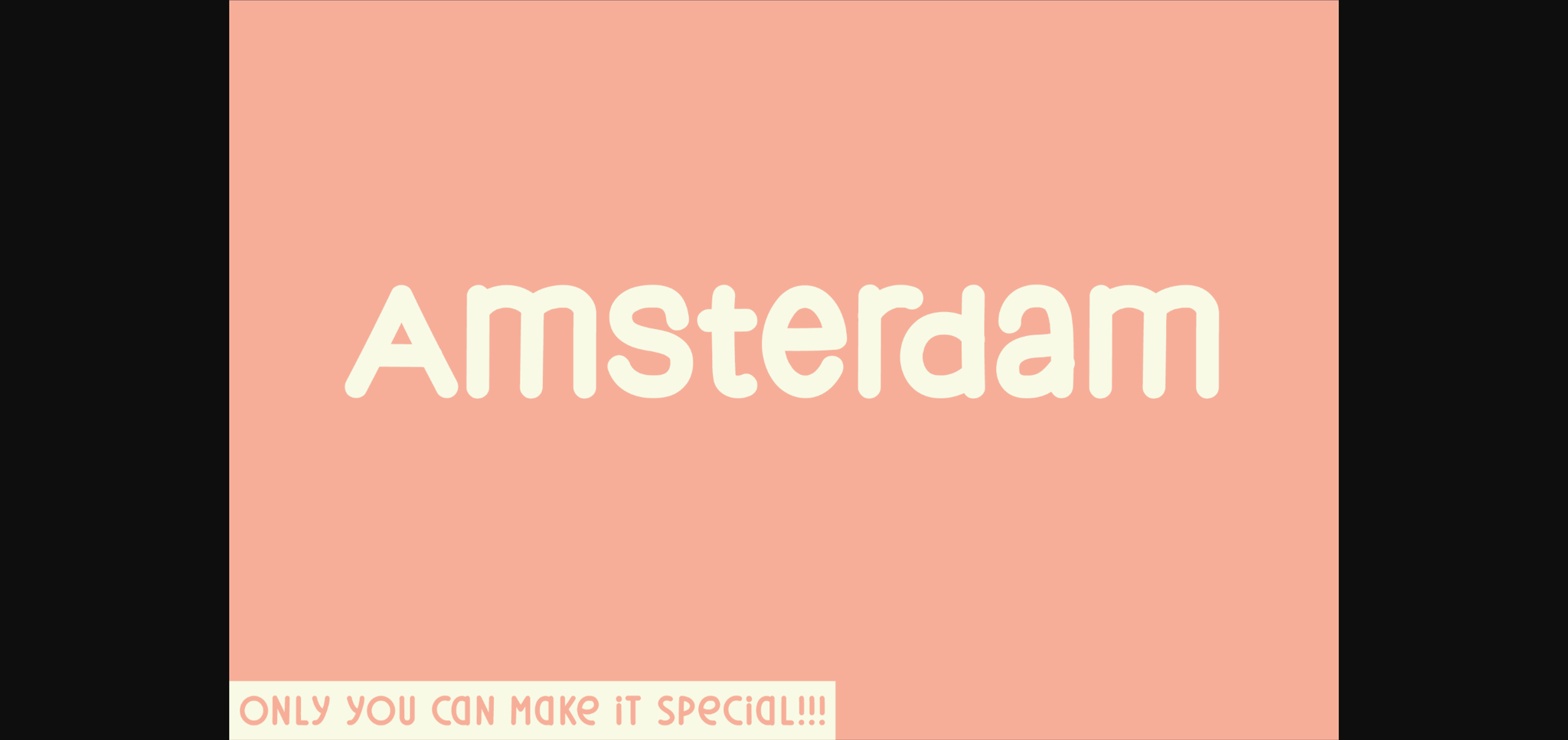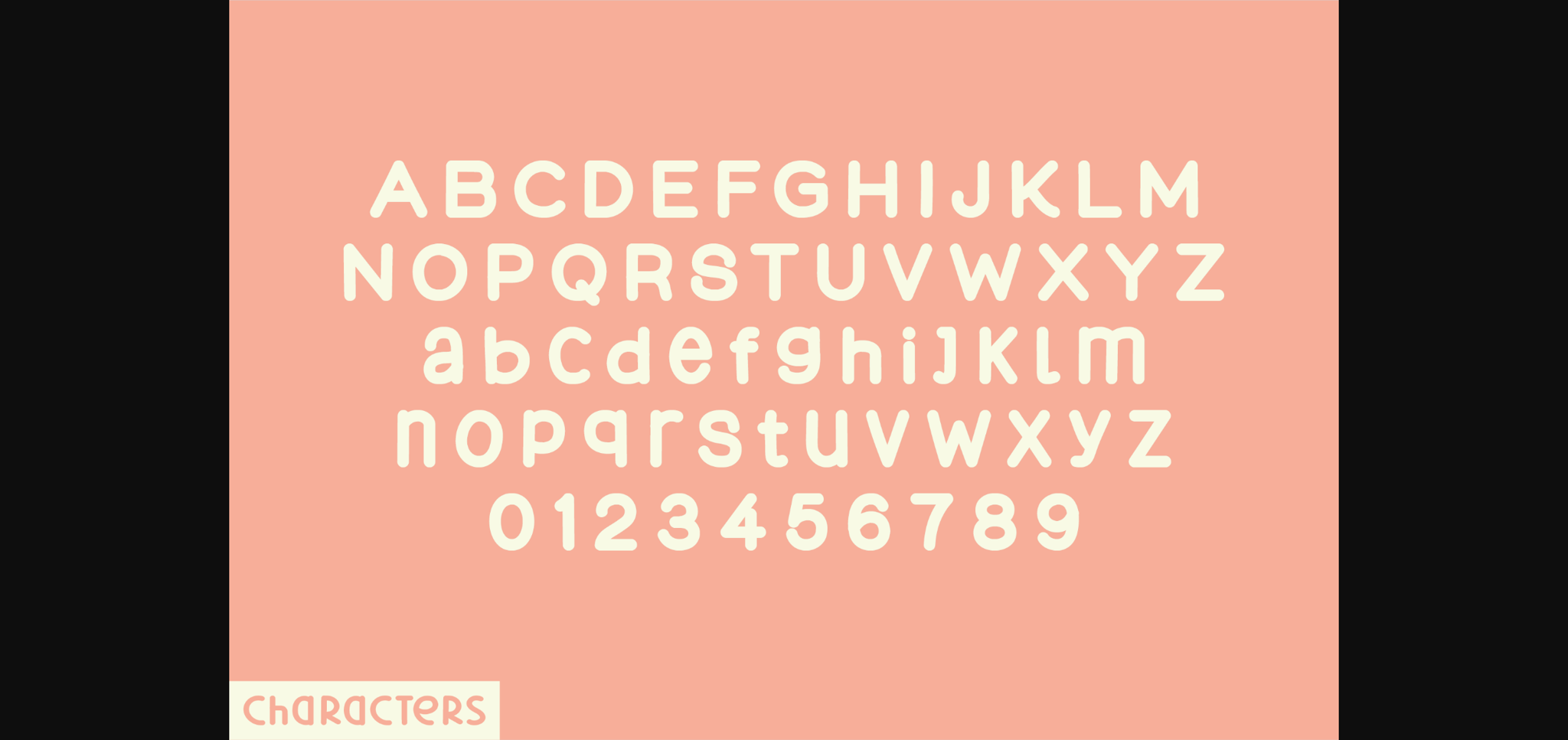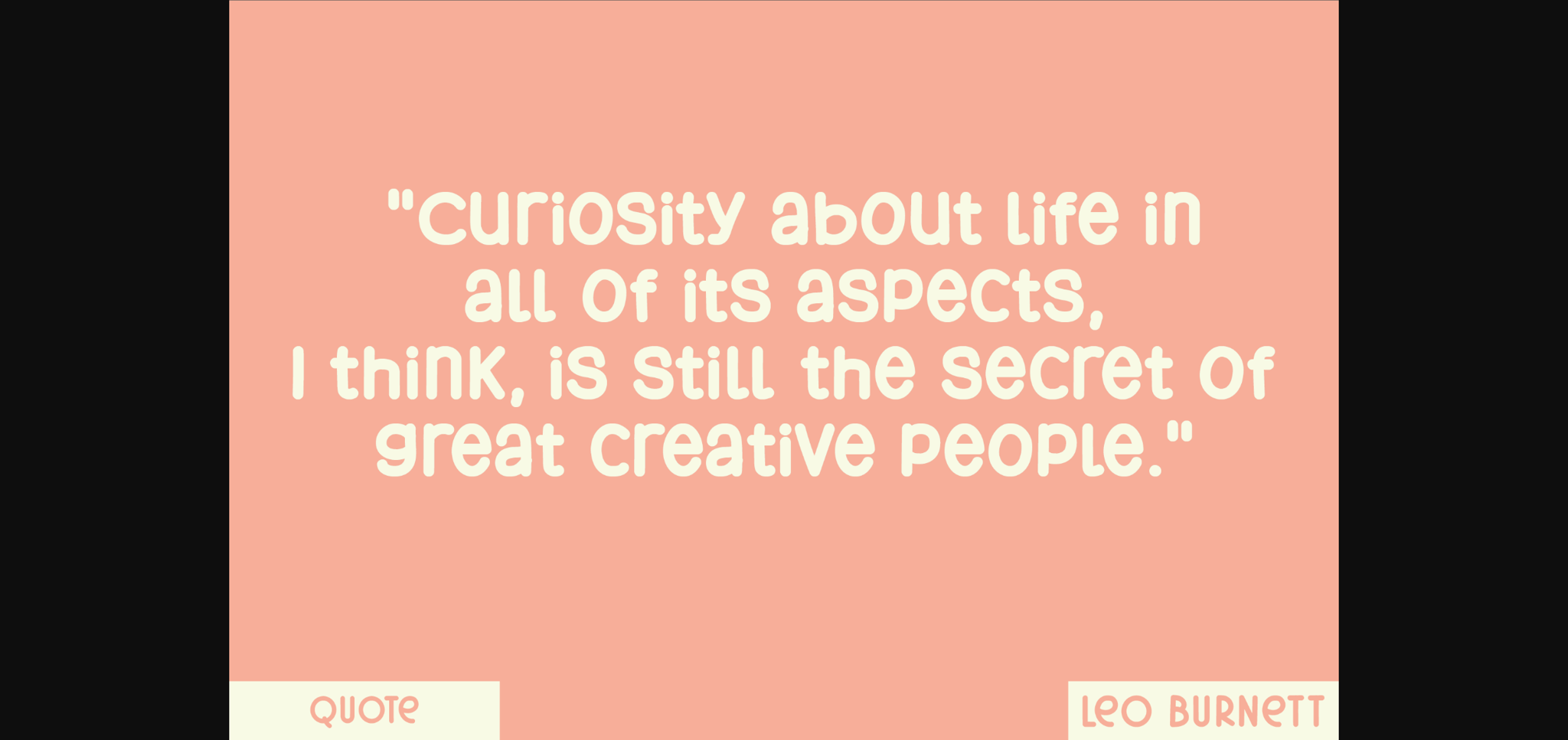
About Amsterdam Font
Introducing the versatile Amsterdam – a distinctive display font crafted in a sans serif style that brings a breath of fresh air to typography. Each letter boasts a charmingly rounded tip, bestowing each word with a pleasingly soft aesthetic that radiates warmth. An embodiment of quirk and beauty, Amsterdam is the ideal font choice for designs intent on conveying a delightful and aesthetically pleasing narration.